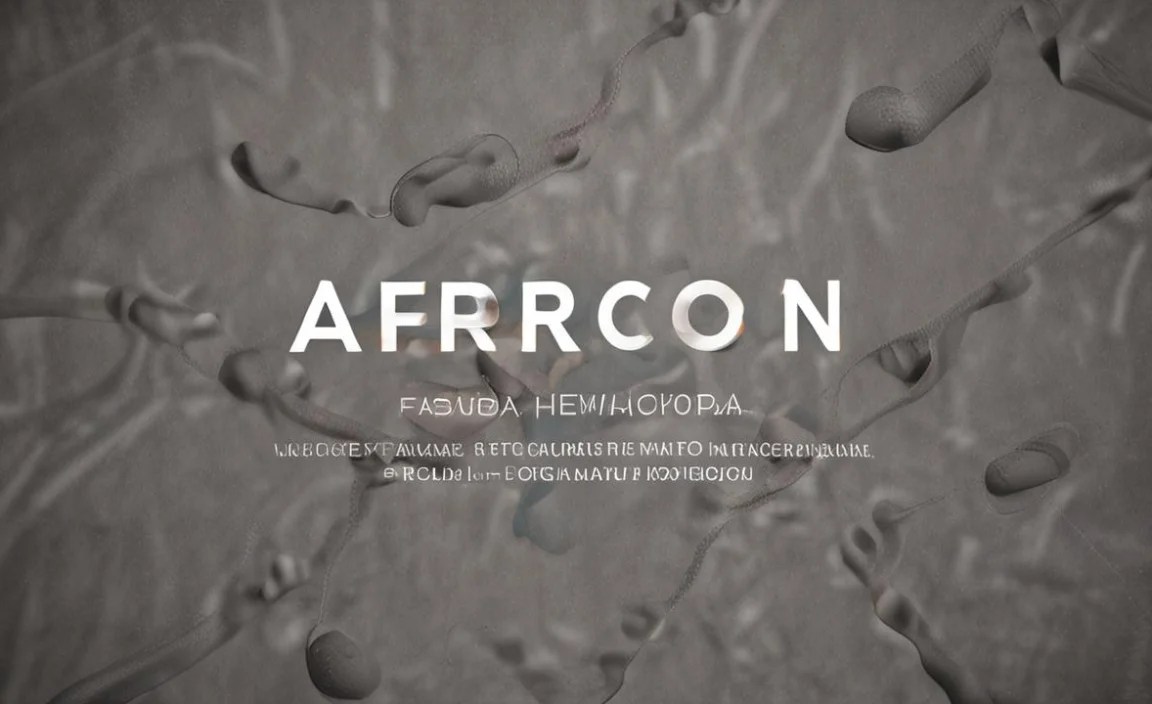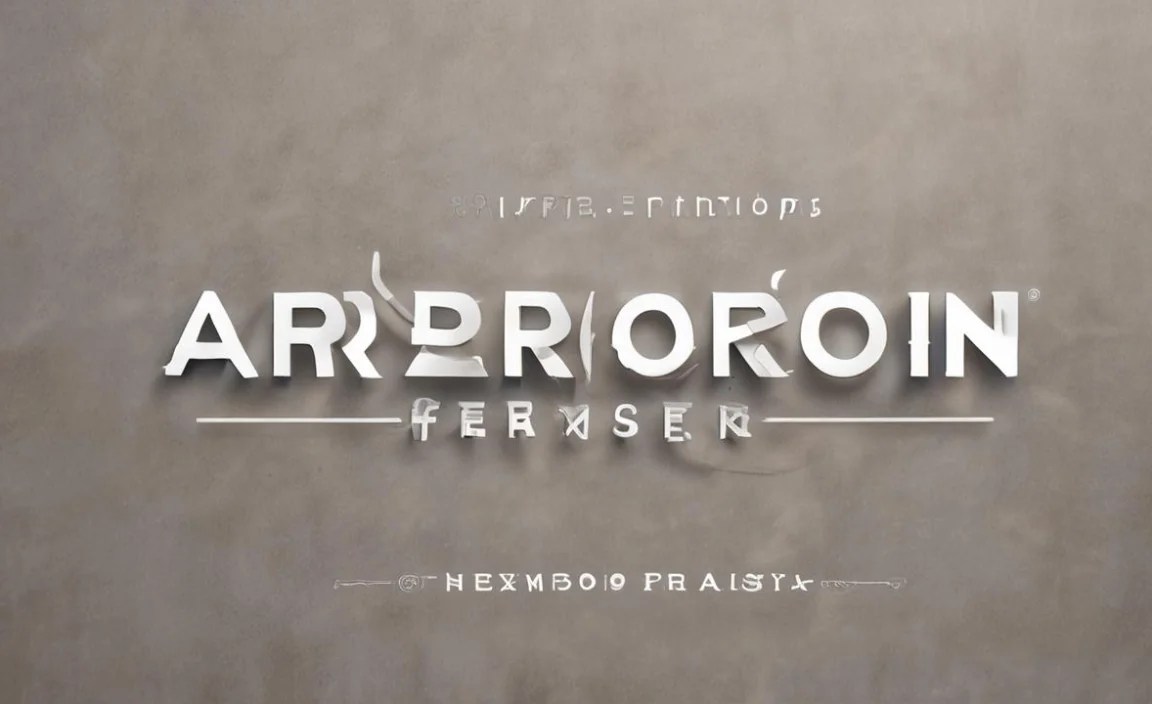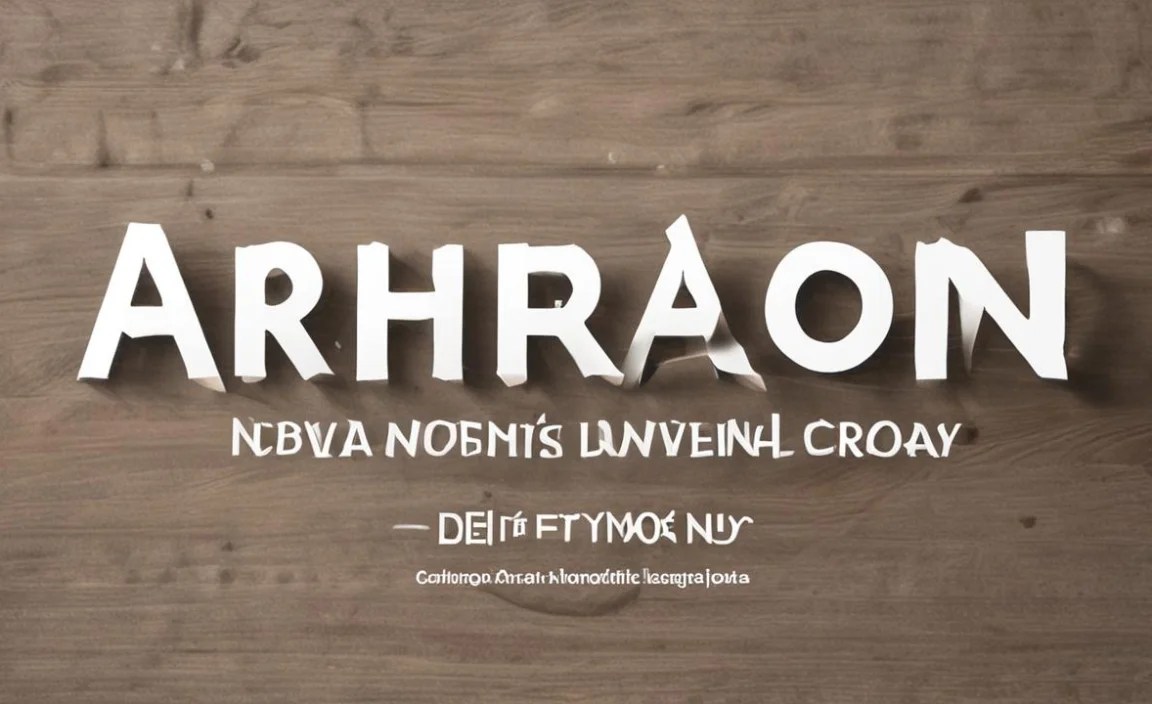
Aharoni Font Information
| Name | Aharoni |
| Designer | Ludwig & Mayer |
| Type | Bold Sans-serif |
Aharoni Font Family Includes
- Aharoni Bold
- Aharoni Regular
Where Aharoni Font Is in Use
Designers widely use Aharoni across various contexts due to its bold and clear appearance. Notable uses include:
- Headlines and titles
- Print advertisements
- Signage and posters
- User interfaces
- Educational materials
- Corporate branding
Aharoni Font FAQs
2. Why Do Designers Love Aharoni?
Designers love Aharoni for its bold and readable design, making it ideal for headlines, signage, and branding.
3. What Are The Future Trends For The Aharoni Font?
Designers will increasingly use Aharoni in digital and print media where they require bold and impactful text. Its readability ensures its continued popularity.
4. When Did Aharoni Come Into Existence?
Aharoni was designed in the early 20th century, and its bold style quickly made it popular for various design needs.
5. What Free Font Resembles Aharoni?
Many consider “Franklin Gothic Heavy” to be a close-free alternative to Aharoni, offering a similarly bold and clear style.
6. How Many Fonts Are In The Aharoni Family?
The Aharoni font family includes two styles: Bold and Regular.
7. What Are The Different Versions Of Aharoni?